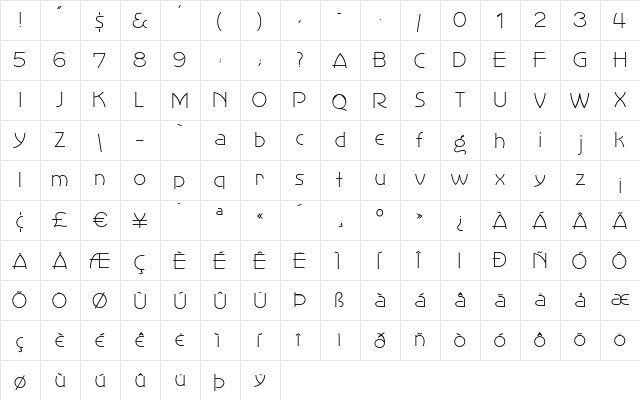
Stringline Gothic Regular Font Preview
Stringline Gothic Regular
Stringline Gothic Regular Font Details
Design Context for Stringline Gothic Typeface
Stringline Gothic has the quiet confidence of well-executed sans-serif typography: versatile, unobtrusive, and dependable at any size.
Font Pairing: Works well alongside a characterful serif or display font that can carry the expressive load while Stringline Gothic handles the functional copy.
Pro Tip: Pair Stringline Gothic with a display or serif font for headlines — its neutral character makes it an excellent supporting player in complex typographic systems.